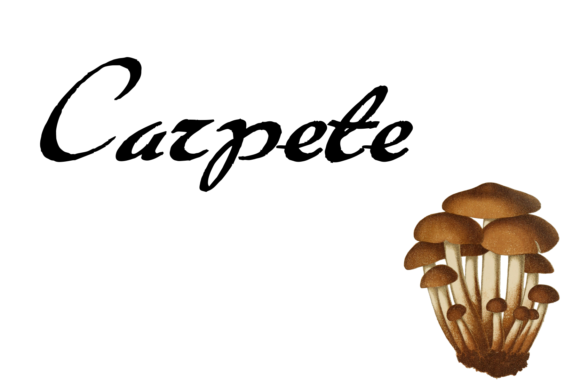
Dive into the world of Carpete, a display font straight from the pages of artistic genius, brought to life by Intellecta Design. With its innocent brushstrokes and playful charm, Carpete will take your designs to new heights.
This font exudes a sense of captivating innocence, inspiring you to craft designs that emanate pure joy and boundless creativity. Its unique, hand-crafted aesthetic will add a charismatic spark to your creations, whether you're crafting logos, posters, or eye-catching headlines.
With Carpete, your designs will dance with a captivating, childlike wonder, leaving an indelible mark on your audience. Picture your designs blossoming with Carpete's unassuming charm, drawing attention with its unpretentious elegance, just like the first strokes of a young artist discovering the magic of self-expression through art.
Unleash your imagination and let Carpete guide you through a whimsical realm, where your designs will resonate with an authentic, human touch. Its imperfections are its magic, capturing the raw beauty of the creative process and transforming your designs into captivating works of art.
Join the artistic journey with Carpete and let your designs flourish with an inimitable charm. Embrace the beauty of imperfection and watch as your creations transform into vibrant expressions of your artistic vision.